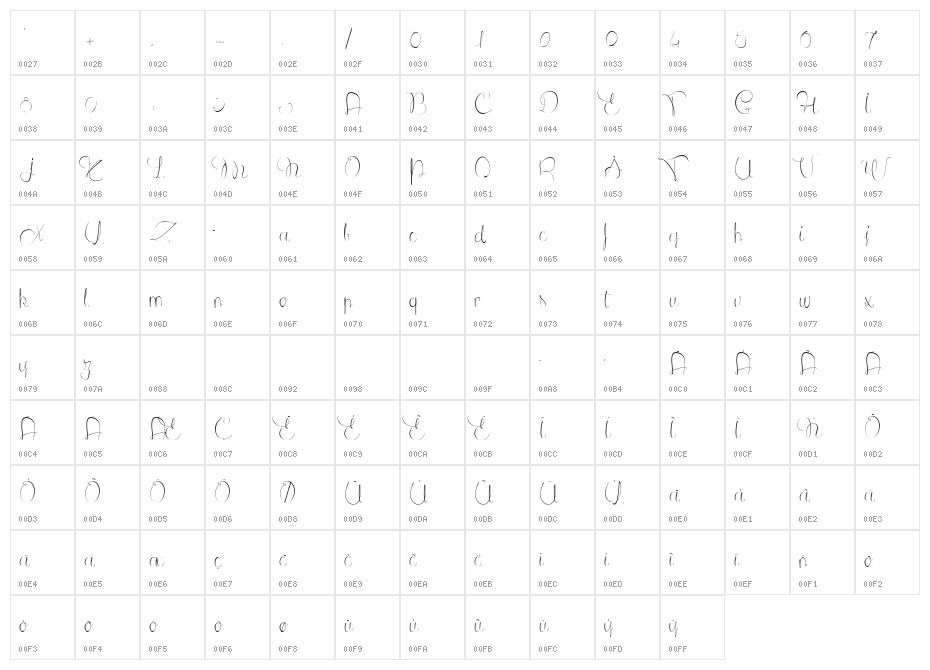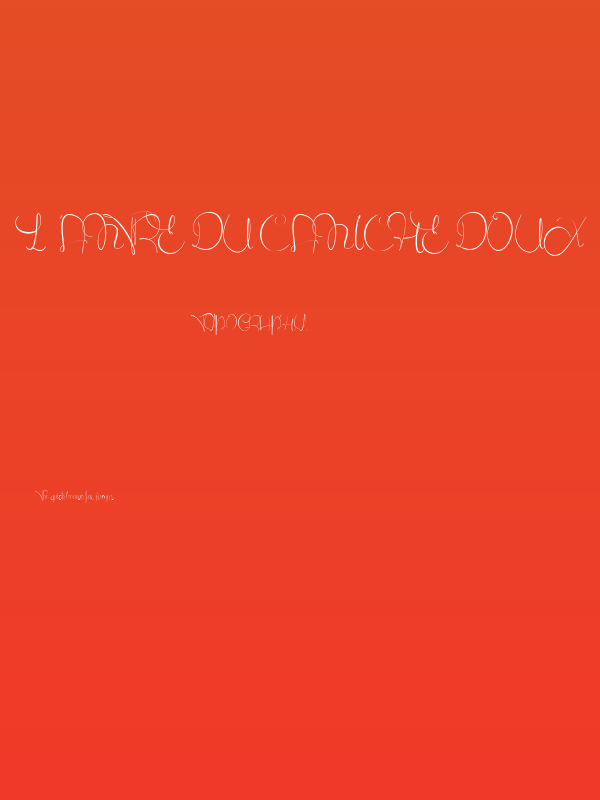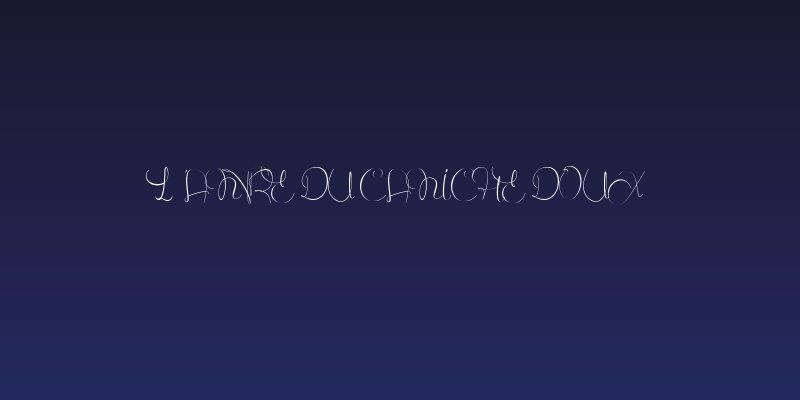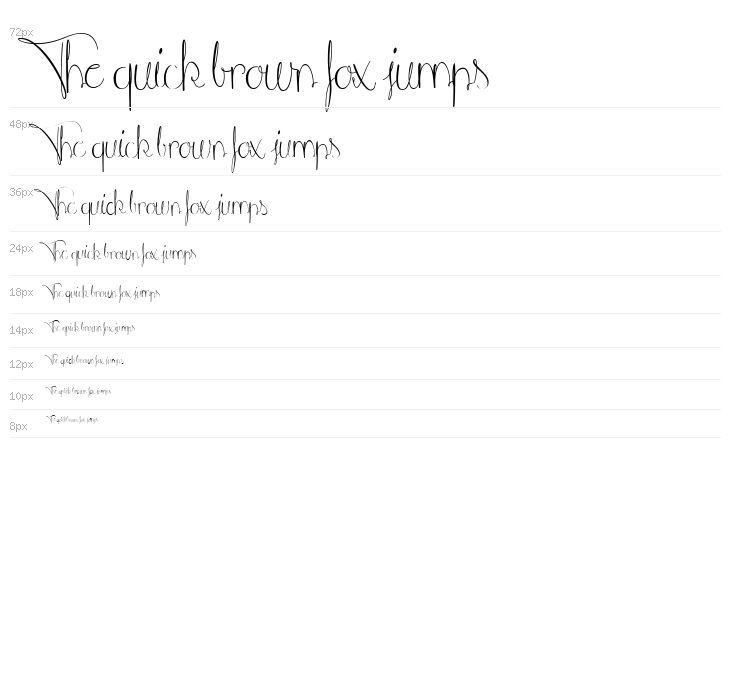
L'antre du Caniche doux Font
L'antre du Caniche doux Description
This font features an elegant and whimsical script style, characterized by its flowing, interconnected letters and delicate curves. The uppercase letters are particularly ornate, with intricate loops and flourishes that give a sense of movement and grace. The lowercase letters maintain a consistent style, with a slightly more subdued flair, ensuring readability while preserving the decorative aesthetic. The numerals and special characters are designed to complement the letterforms, maintaining the same level of intricacy and style. Overall, this font exudes a sense of sophistication and charm, making it suitable for projects that require a touch of elegance.
| Proposed Projects | Ideal for wedding invitations, greeting cards, branding projects, and elegant packaging designs. |